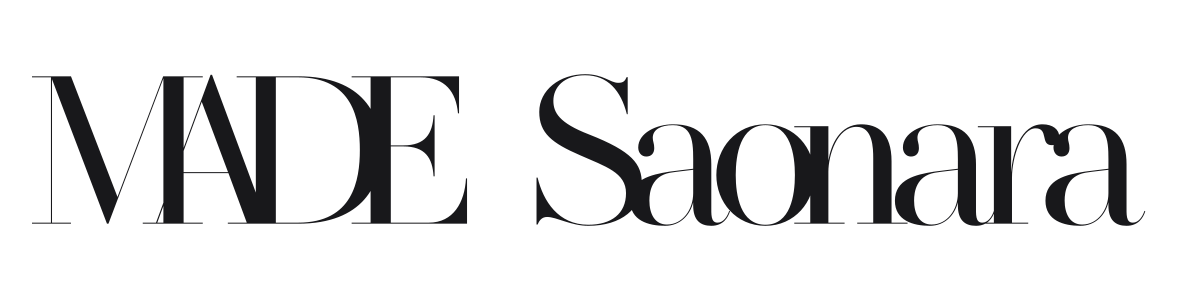
MADE Saonara
by MadeType
MADE Saonara is a high-contrast display serif inspired by the aesthetic of luxury fashion branding, drawing DNA from the Zara logo. The extreme interplay between heavy stems and near-invisible hairline strokes gives it a cinematic presence at headline sizes. It suits fashion editorial, wedding stationery, and any project that needs quiet glamour.